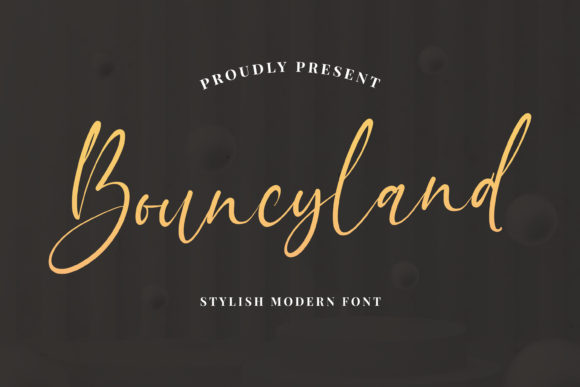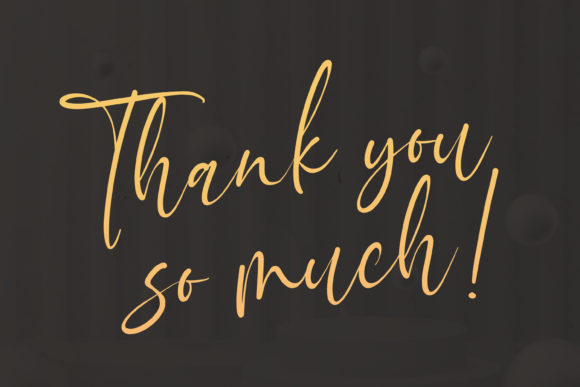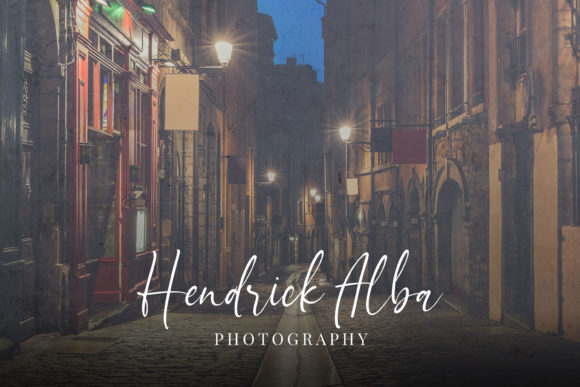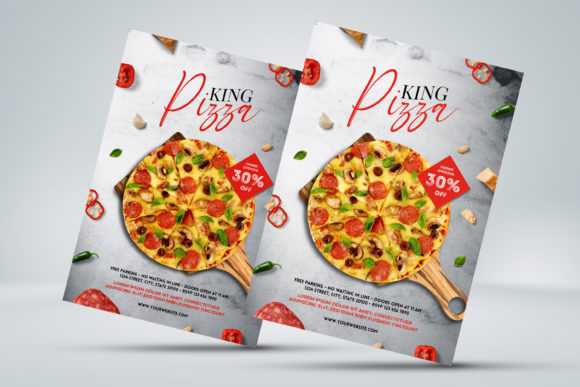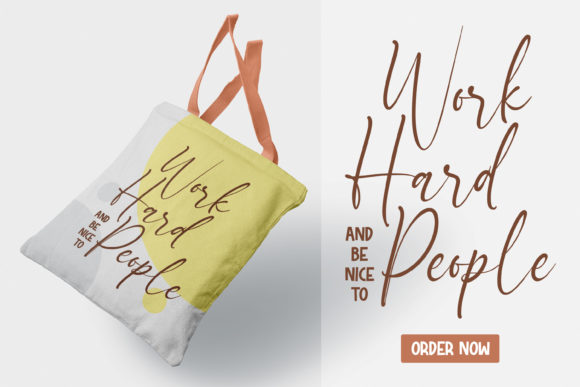
About Bouncyland Font
Bouncyland is a refined and elegant script font that exudes a delicate and classy look. With its balanced and varied letterforms, this font is meticulously crafted to enhance the beauty of your design projects.
The strokes of Bouncyland strike the perfect balance between thickness and thinness, giving it a graceful and sophisticated appearance. This versatile font is suitable for a wide range of applications, including branding, invitations, stationery, packaging, and more. Whether you’re working on a luxury brand, wedding designs, or elegant typography, Bouncyland adds a touch of refinement and charm.
With its delicate and classy look, Bouncyland brings a sense of elegance and style to your designs. The flowing and curvaceous letterforms create a harmonious and pleasing visual rhythm, making it a perfect choice for logos, headlines, quotes, and other display purposes. Its versatility allows it to shine in both digital and print contexts.
Bouncyland’s attention to detail and craftsmanship make it a joy to work with. Each character is carefully designed with precision and grace, ensuring that they complement each other seamlessly. The result is a script font that exudes sophistication and adds a touch of elegance to your projects.
Incorporating Bouncyland into your designs is effortless, as it seamlessly blends with various design elements. Its timeless and classy appearance elevates the overall aesthetic and creates a lasting impact on your audience. Whether you’re creating invitations, branding materials, or any other design project, Bouncyland enhances the beauty and adds a touch of refinement.
So, if you’re looking for an elegant and classy script font to enhance the beauty of your projects, consider using Bouncyland. Its delicate and balanced letterforms, combined with its timeless charm, will bring a touch of sophistication to your designs and captivate your audience.